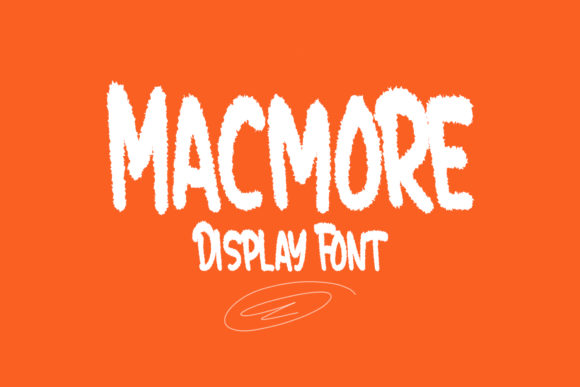
Adorn your designs with Macmore, a display font family forged from the harmonious blend of simplicity and boldness. Step into a realm of limitless creativity as you explore the diverse applications of this remarkable font. Let your imagination run wild as you craft letterheads, titles, stationery, and more, imbued with a unique charm that captivates and inspires.
Macmore's essence lies in its striking sprayed texture, adding an artisanal touch to every letterform. This distinctive aesthetic evokes a sense of authenticity and craftsmanship, elevating your designs to new heights of elegance. Experience the thrill of creating wedding labels that exude timeless sophistication, menus that entice with their rustic allure, and branding materials that radiate a bold and confident spirit.
With Macmore, your words transcend mere communication; they transform into captivating expressions of art. Its versatility knows no bounds, adapting seamlessly to a multitude of creative endeavors. Craft social media posts that pop with personality, logos that leave a lasting impression, and product packaging that demands attention on crowded shelves.
Harness the power of Macmore to elevate your designs to new heights. Embrace the boundless possibilities it offers and unleash your creative genius. As you explore the depths of this extraordinary font family, discover a world of beauty, originality, and endless inspiration.